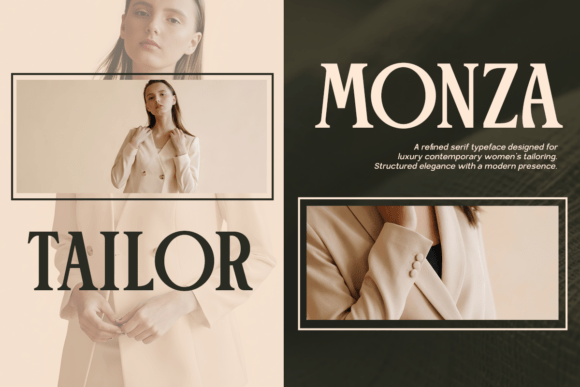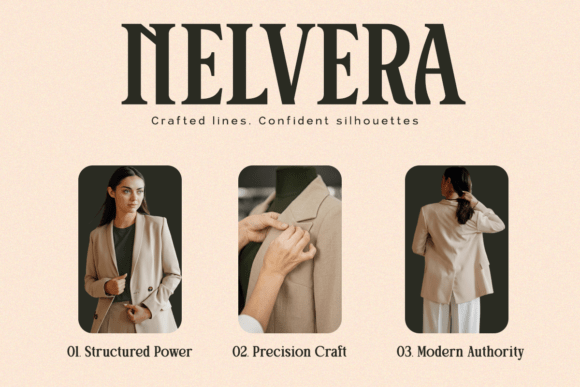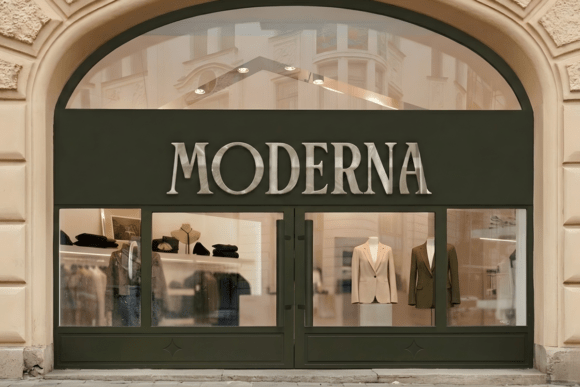
Introduction to Patcher Font
As designers, we’ve all been there – staring at a blank page, trying to bring our creative vision to life. The perfect font can make all the difference, elevating our work from good to great. And that’s where the Patcher Font comes in – a stylish serif font that’s about to become your new go-to design resource.
Whether you’re working on a fashion branding project, creating a luxury packaging design, or crafting a sophisticated editorial layout, the Patcher Font is the perfect addition to your toolkit. Its elegant serif structure enhances readability while maintaining a strong visual personality, making it a high-quality design asset that’s sure to impress. And the best part? It’s available for free download, so you can start incorporating it into your creative projects right away – even those with transparent backgrounds.
With its modern aesthetic and versatility, the Patcher Font is an invaluable tool for designers who want to create premium, contemporary designs that stand out from the crowd. And with its clear, legible style, it’s perfect for projects that require a touch of sophistication and elegance.
Patcher Font
- Perfect for use in graphic design, digital art, and web design projects, thanks to its versatility and high-quality design.
- Designed to be a unique and creative design resource, adding a touch of elegance to any project.
Honest Review: Patcher Font
One of the standout features of the Patcher Font is its versatility. It’s perfect for creative projects that require a clean and modern aesthetic. The transparent background allows for seamless integration into any design, making it a great addition to my design arsenal.
- ✨ High-quality design that looks professional
- ✨ Versatile and suitable for a wide range of creative projects
- ⚠️ Limited character set, which may not be suitable for complex text-based projects
- ⚠️ Not as extensive as some other font collections, which may require additional resources
Overall, I’m impressed with the Patcher Font. It’s a solid addition to any designer’s library, and I appreciate the transparency of the design. While it may not be perfect, it’s a great starting point for many creative projects. I’d definitely recommend giving it a try, especially for those on a budget or looking for a high-quality font at no cost.
Patcher Font
The Patcher Font is a versatile, high-quality design resource ideal for creative projects. It’s available for free download with a transparent background, making it easy to incorporate into your designs.
To get the most out of the Patcher Font, experiment with different font sizes, colors, and combinations to create unique and eye-catching designs.
The Patcher Font is perfect for:
- Graphic design projects
- Presentations and reports
- Logo design and branding